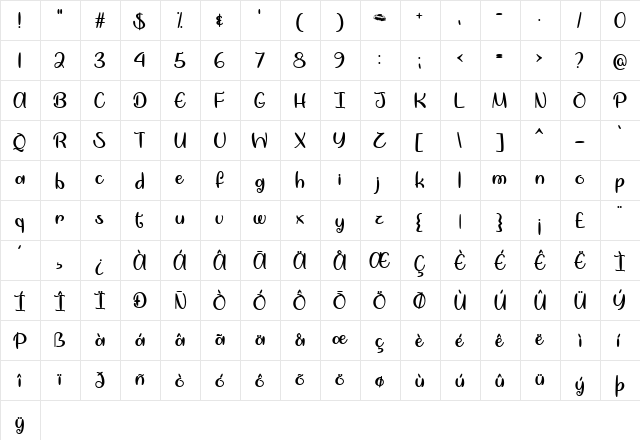
Warm Winter Kiss Regular
Design Context for Warm Winter Kiss Typeface
Warm Winter Kiss is a composed and adaptable typeface that performs quietly and consistently across a wide range of design contexts.
Pro Tip: Use Warm Winter Kiss in both headline and body roles to test its range before committing to a single application.